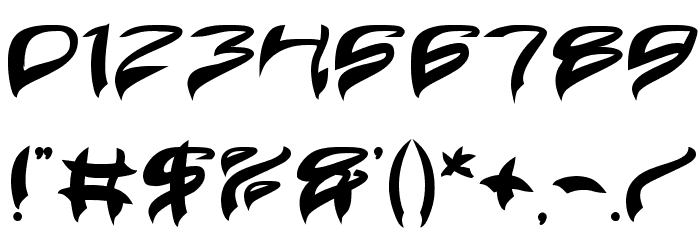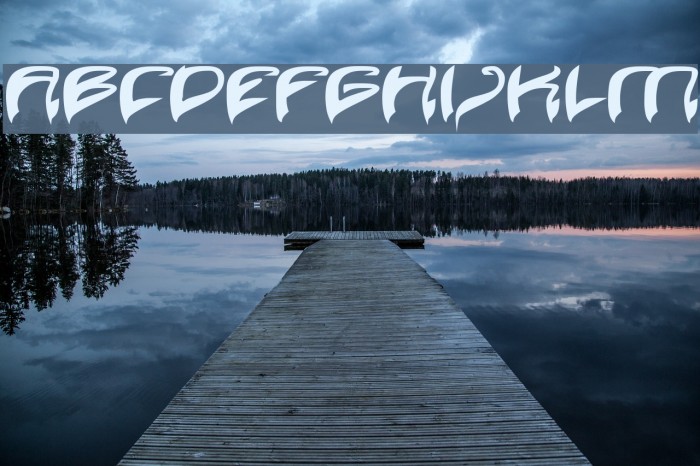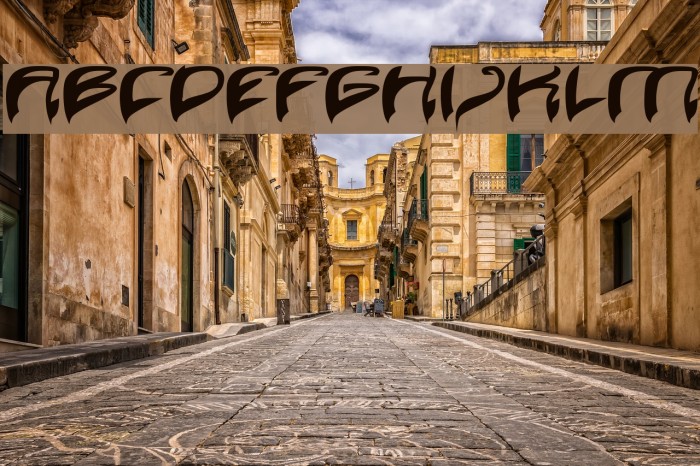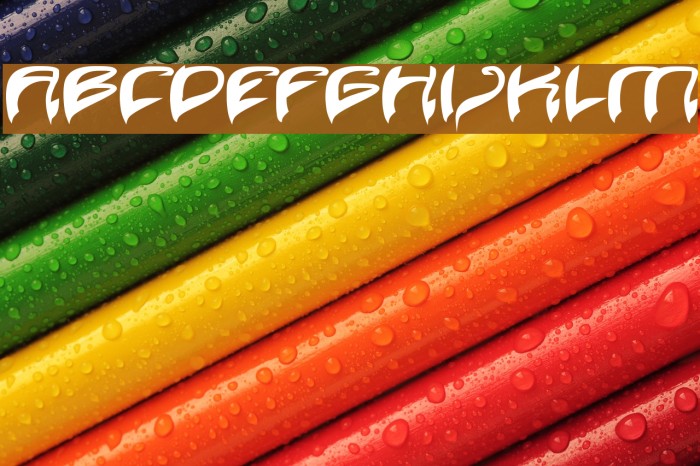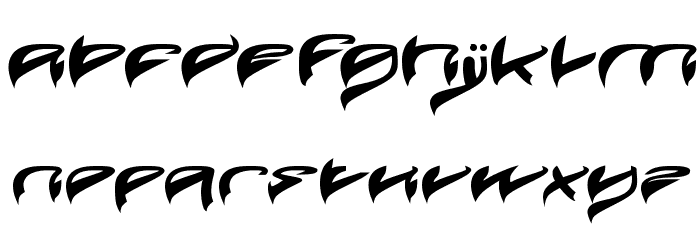
Java Island Bold Font
Java Island Bold Description
This font features a bold and dynamic style with sharp, angular edges and a distinct tribal influence. The characters are heavily stylized, with thick strokes and pointed terminals that give it an aggressive and energetic appearance. The uppercase and lowercase letters maintain a consistent design, emphasizing the font's unique aesthetic. Numbers and special characters are equally bold, ensuring a cohesive look across all text. This font's design is reminiscent of traditional island motifs, making it stand out with its artistic flair.
A bold, tribal-inspired font with sharp, angular edges and a dynamic style from Uncategorized fonts.
- Proposed Projects: Ideal for projects that require a bold and artistic touch, such as logo design, posters, and branding for events or products with a tribal or exotic theme.